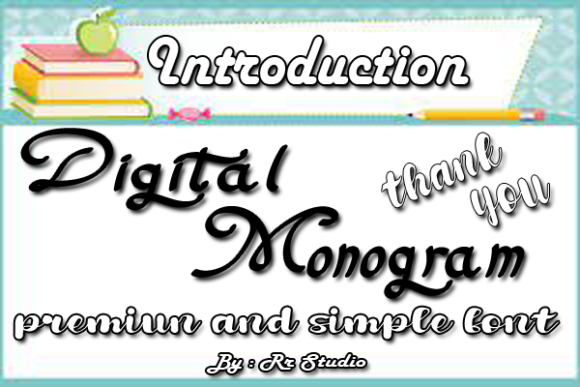
Digital Monogram Font
About Digital Monogram Font
Digital Monogram is a ravishing handwritten font. This versatile script font has a wide spectrum of applications ranging from greeting cards to headlines and is guaranteed to add a romantic feel to your next project.